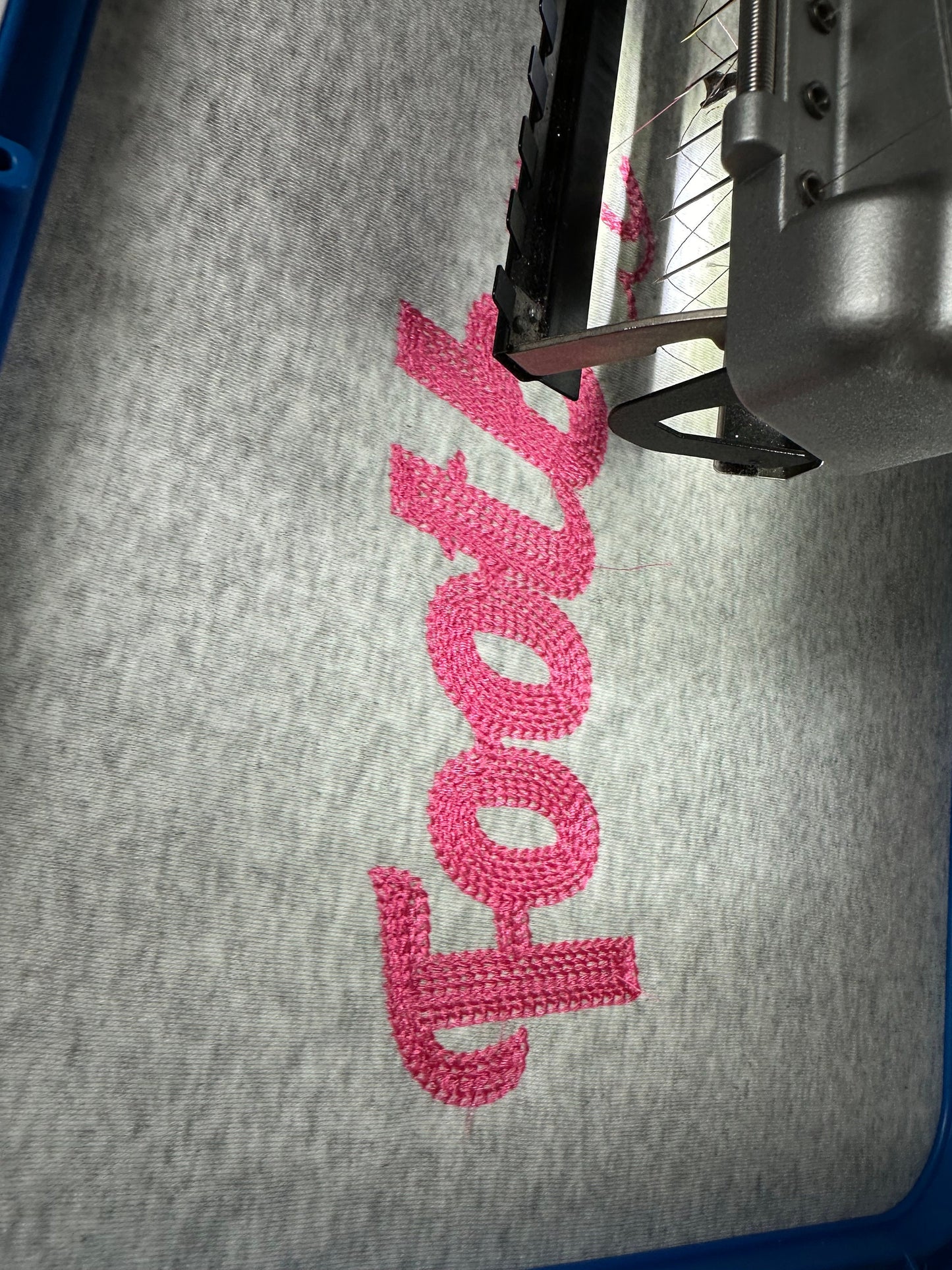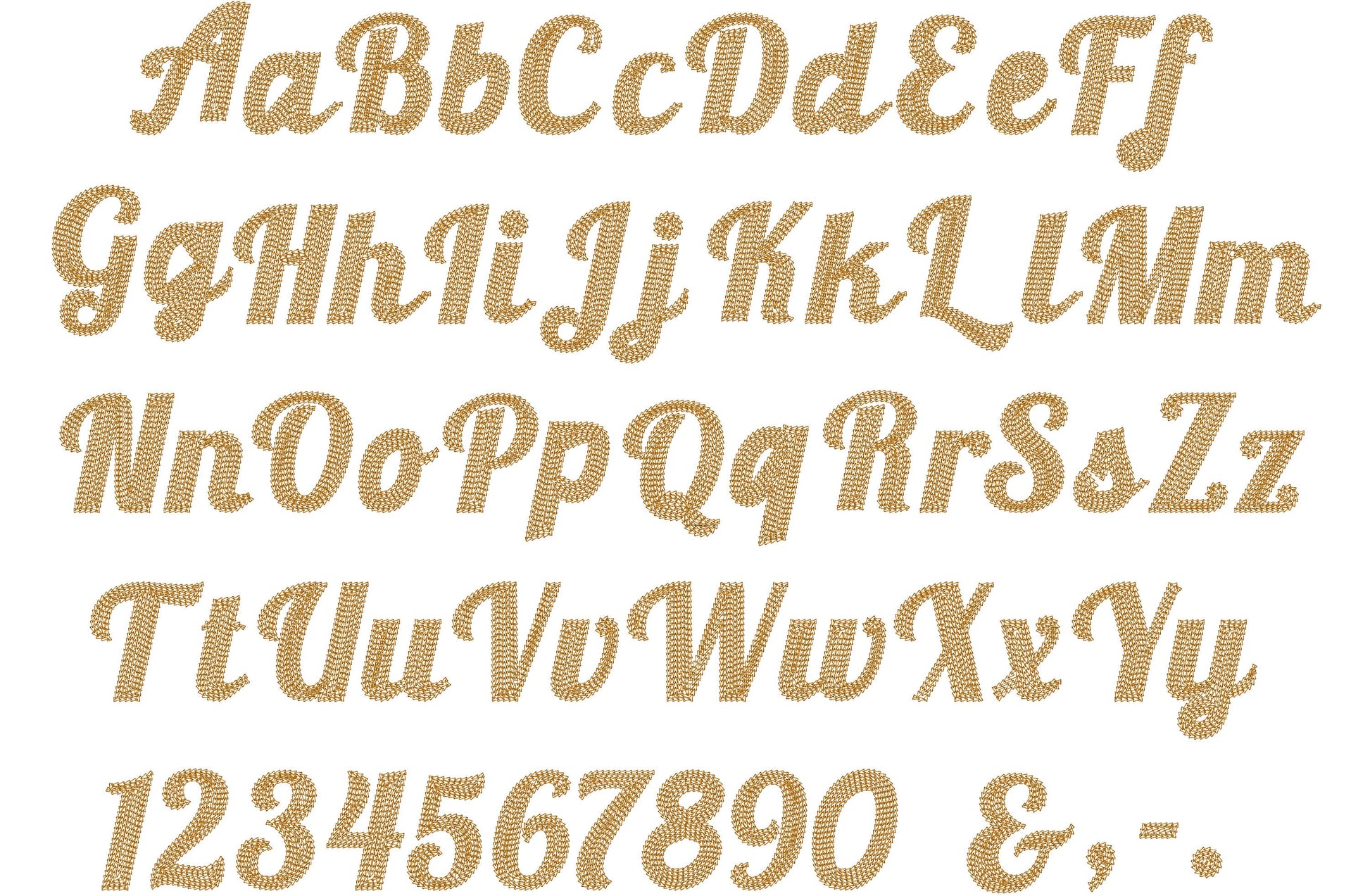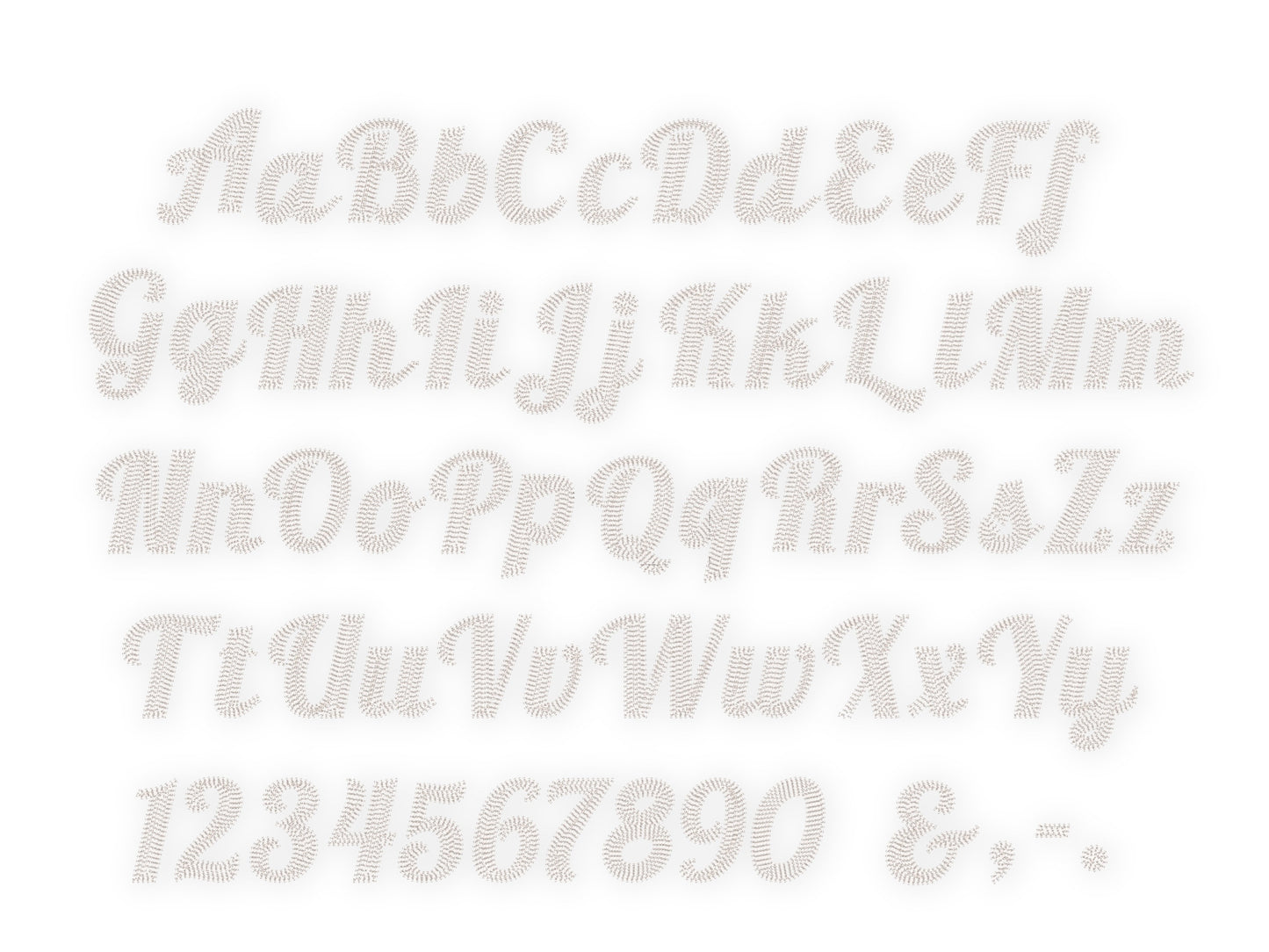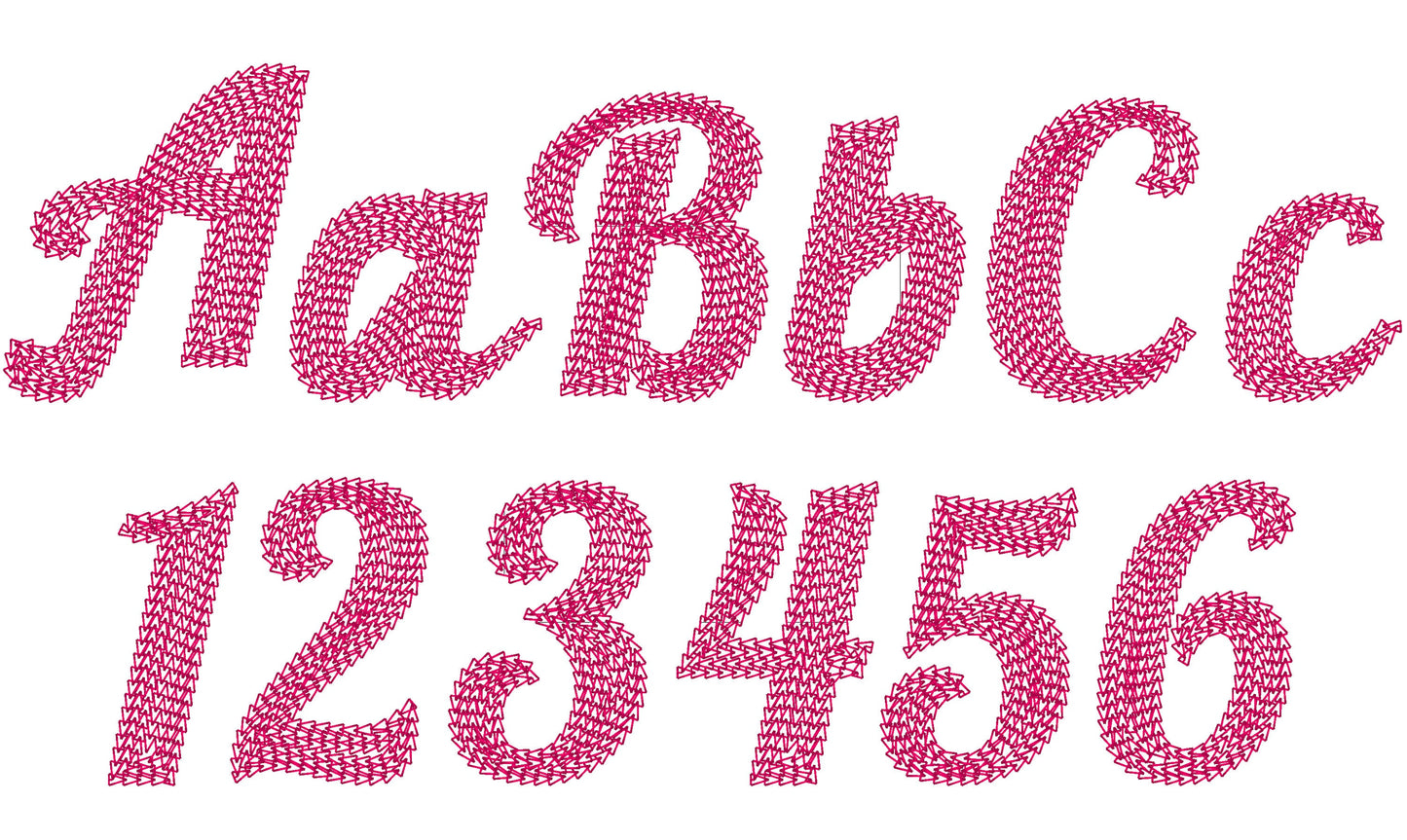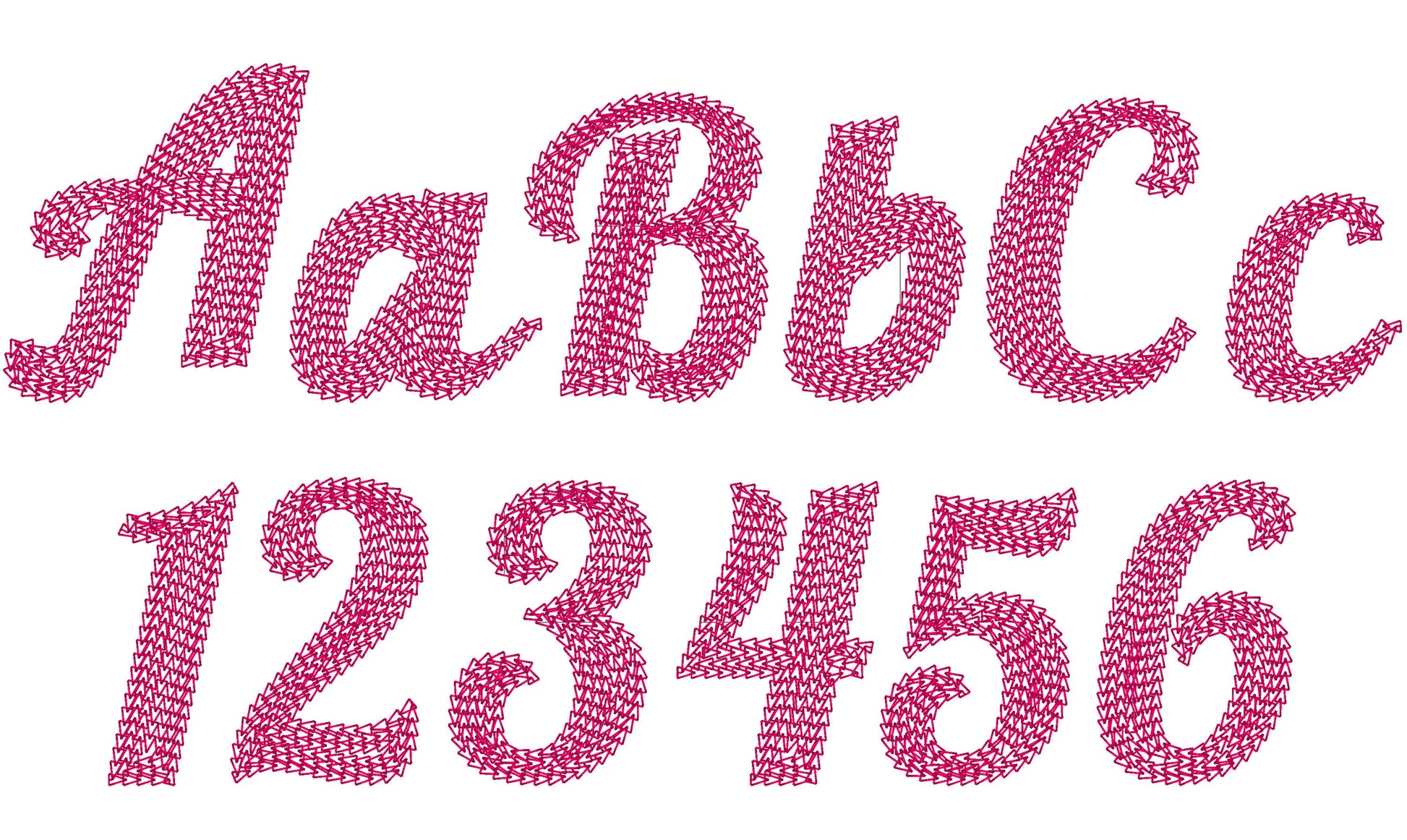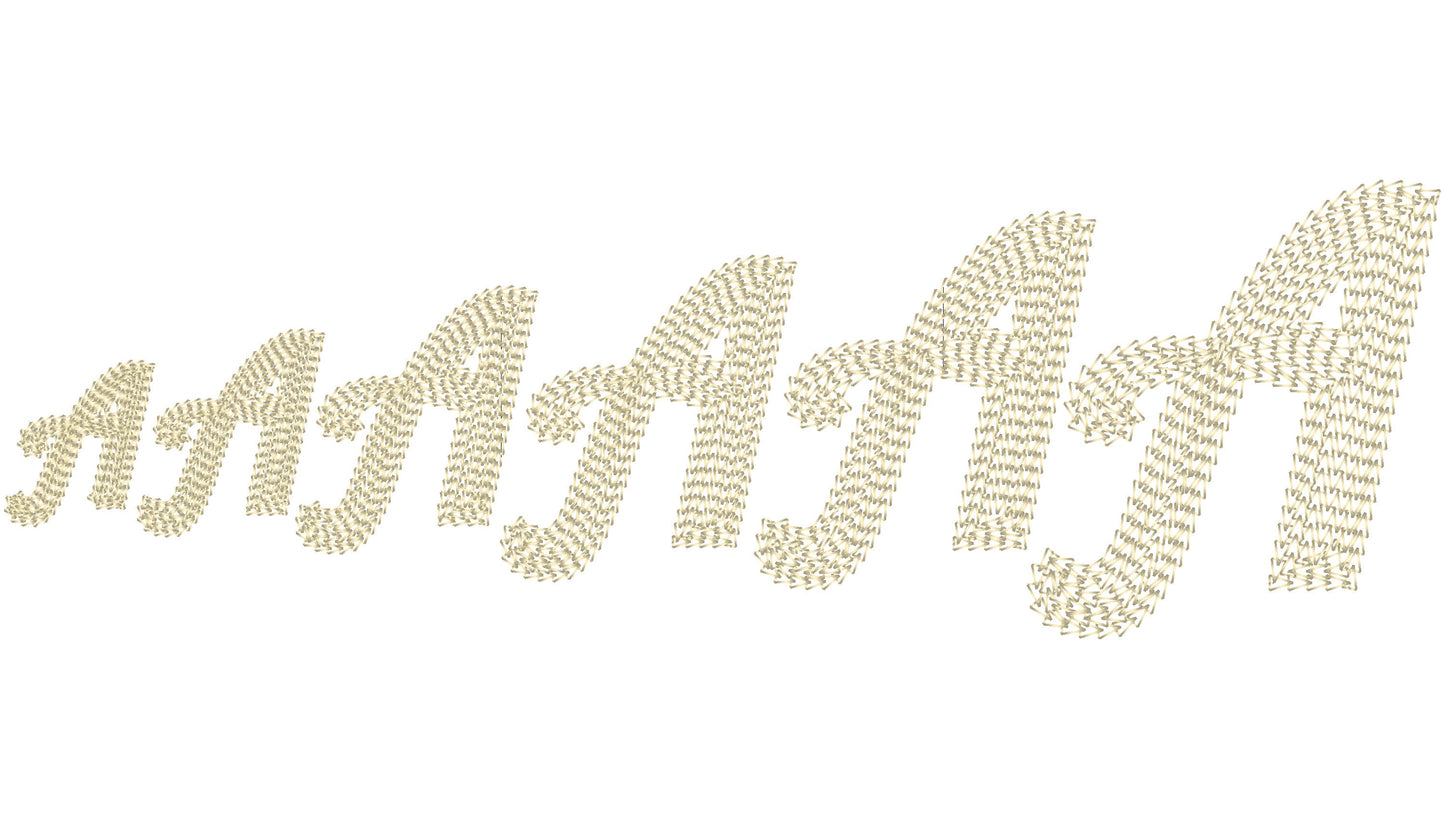
Or click to open the linkA wide cursive font with a hand-stitched chain fill look, for names and monograms on sweaters, tote bags and pillows.
Uppercase and lowercase letters, numbers and punctuation in six sizes: 1.5, 2, 2.5, 3, 3.5 and 4 inches.